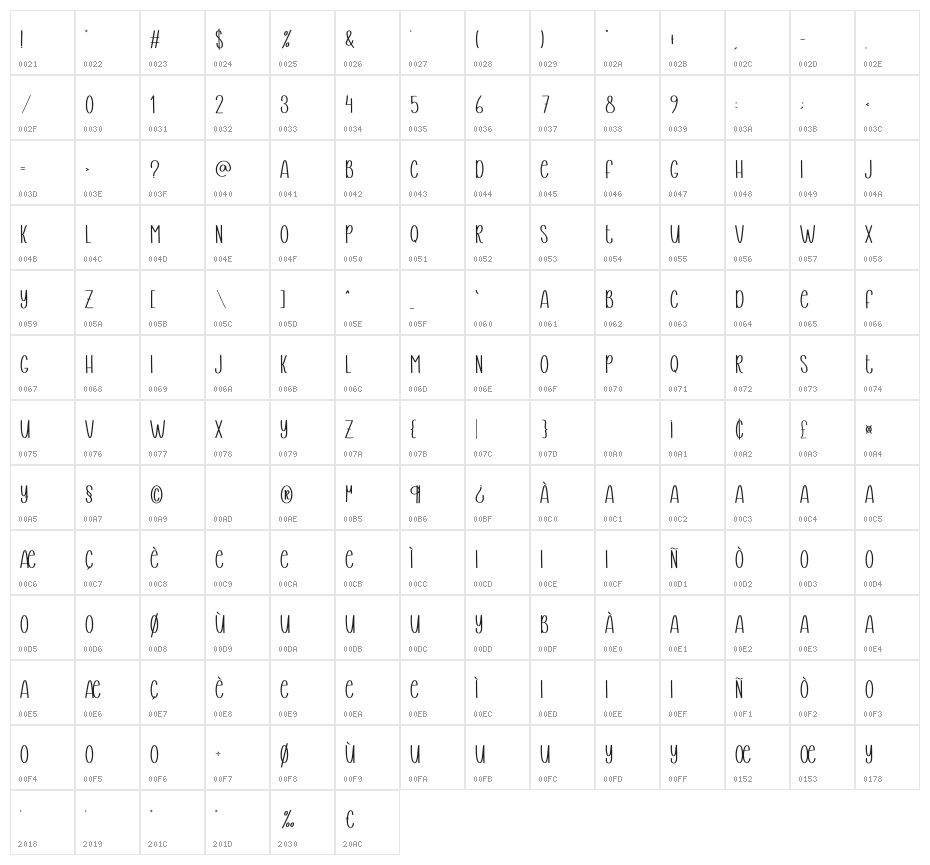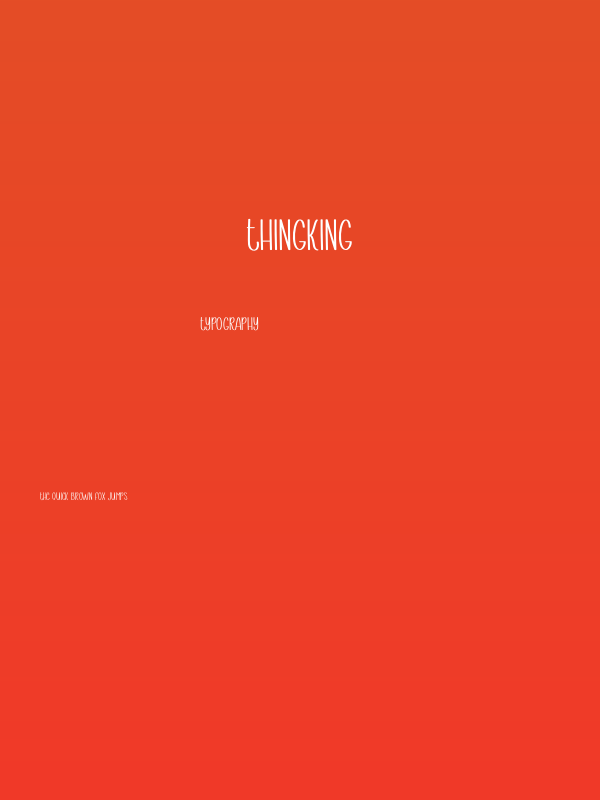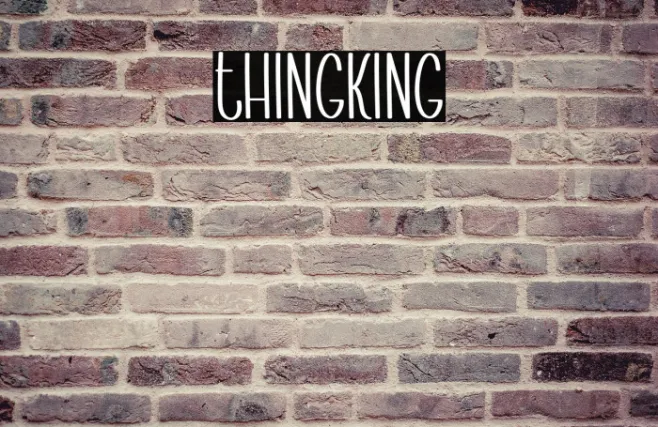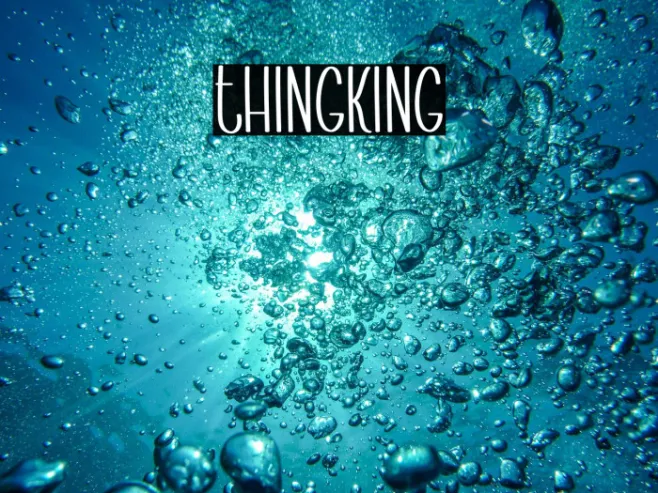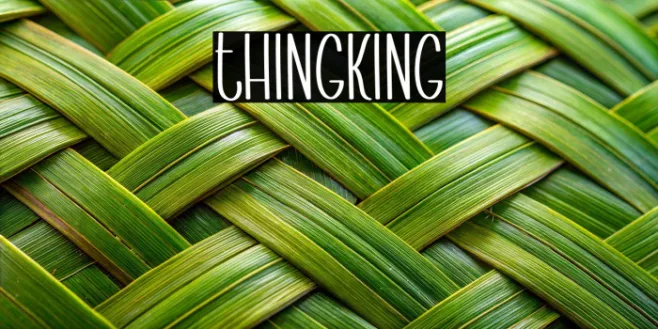
Thingking Font
Thingking Description
A playful, handwritten-style font with a casual and friendly appearance, featuring slightly elongated characters and a consistent stroke width.
| Overall Style | Casual, Friendly |
| Use Case | Headlines, Casual text, Invitations |
| Proposed Projects | Greeting cards, invitations, casual branding. |